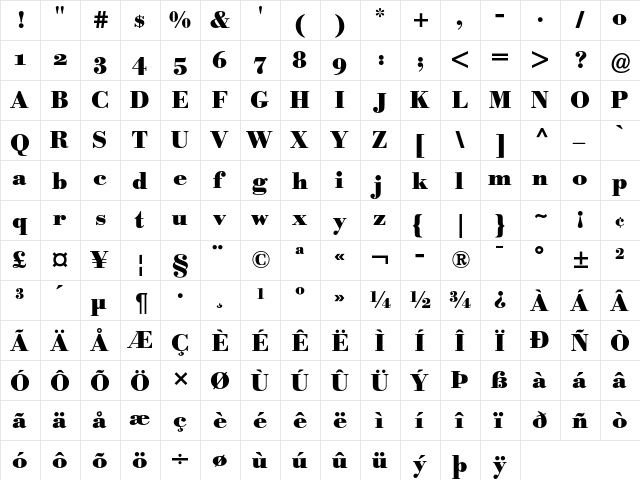
Bodoni BE Bold OsF
Design Context for Bodoni BE Typeface
Bodoni BE is a composed and adaptable typeface that performs quietly and consistently across a wide range of design contexts. Its bold stroke weight gives it real presence on the page.